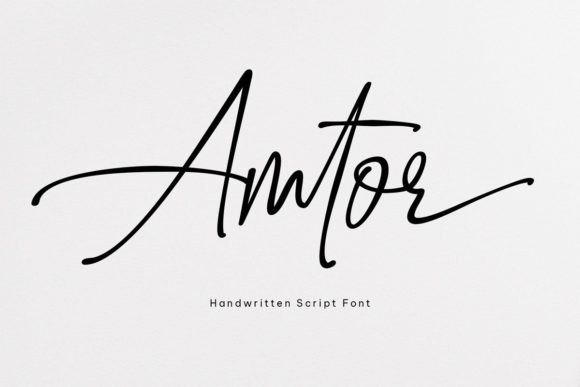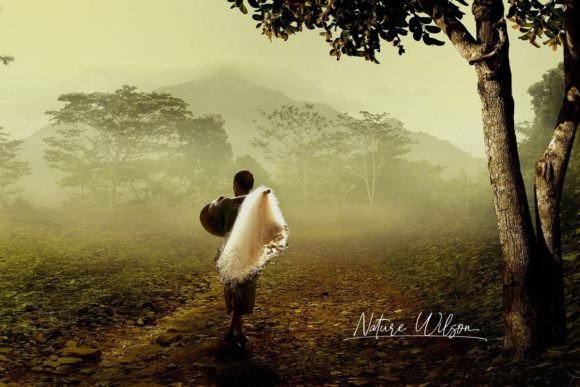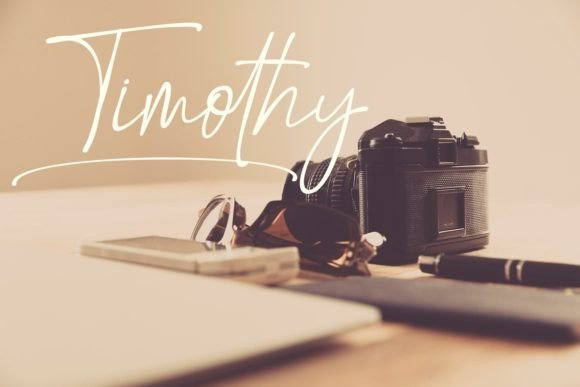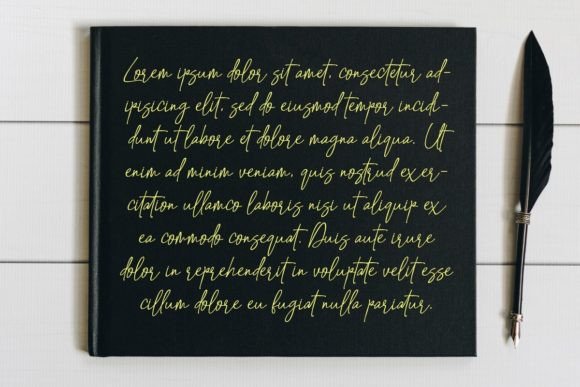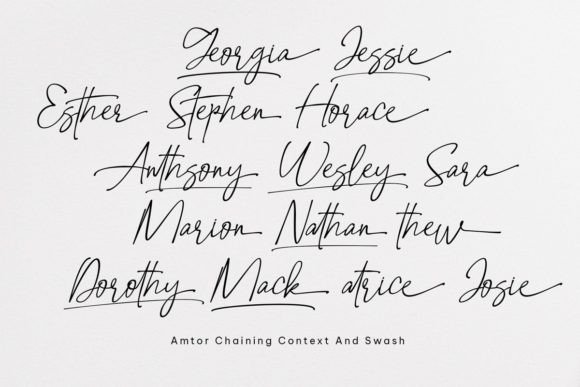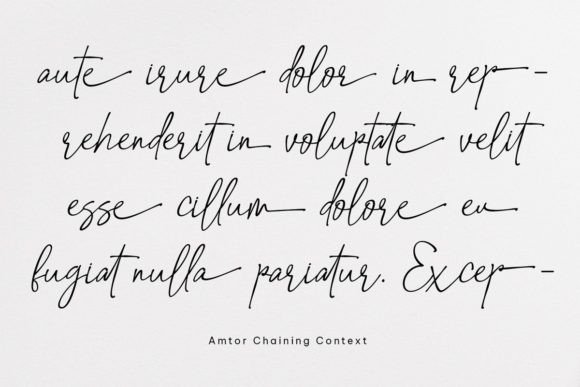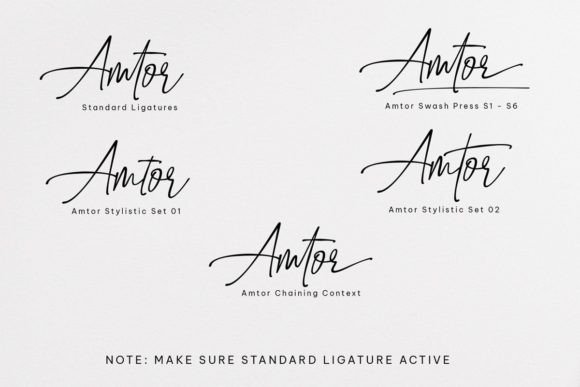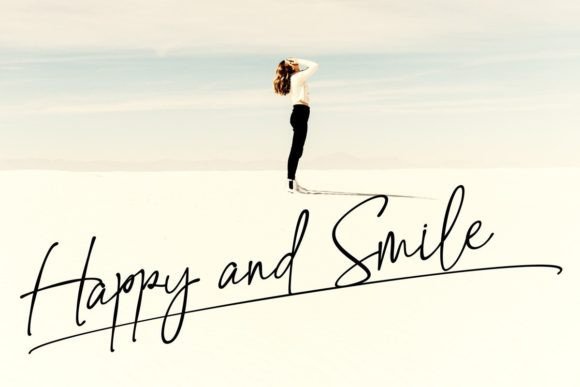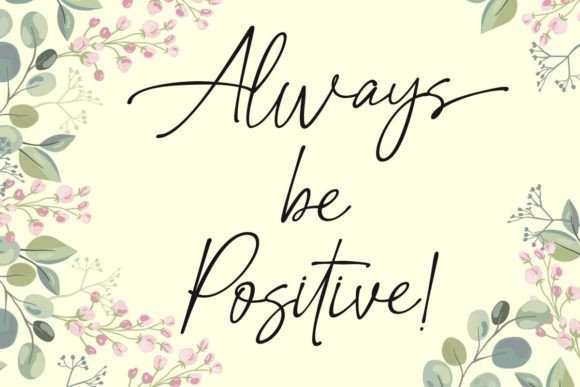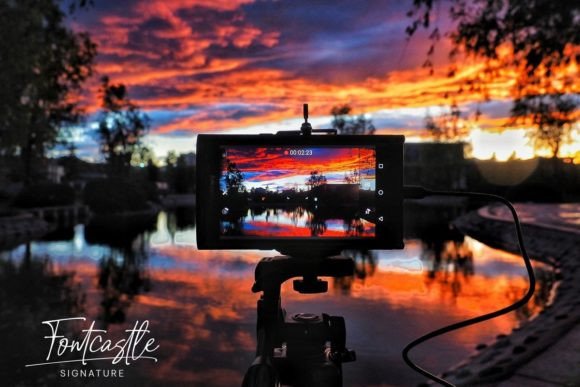
Amtor Font
About Amtor Font
Introducing Amtor Handwritten Script Font, where fashion meets simplicity in a clean and modern script. This font is not just a typographic choice; it’s a versatile tool that adds a touch of contemporary elegance to your designs. With its PUA encoding, accessing all the captivating glyphs and swashes becomes effortlessly easy, providing you with a wide range of creative possibilities.
Amtor is designed with a keen sense of fashion, making it an ideal companion for a variety of design projects. Its clean lines and simple yet stylish appearance make it a perfect fit for diverse applications, allowing you to mix and match effortlessly across different design elements.
The PUA encoding feature of Amtor ensures a seamless experience in unleashing the full potential of this script font. Explore a plethora of glyphs and swashes with ease, giving your designs a personalized and distinctive flair that sets them apart.
Whether you’re working on branding, invitations, signage, or any other creative endeavor, Amtor adapts gracefully, adding a contemporary and fashionable touch to your work. The versatility of this font allows you to experiment and create designs that resonate with your unique vision, making it a valuable asset in your design toolkit.
Picture effortlessly blending Amtor into your designs, creating a harmonious balance between simplicity and sophistication. Let this font be the bridge between modern aesthetics and timeless appeal, allowing you to craft designs that stand out in their simplicity and captivate with their style.
In summary, Amtor Handwritten Script Font is not just a font choice; it’s a design companion that empowers you to infuse fashion, simplicity, and cleanliness into your creative projects. Embrace the freedom to mix and match, and let Amtor be the stylish punctuation mark that elevates your designs to a new level of contemporary elegance.